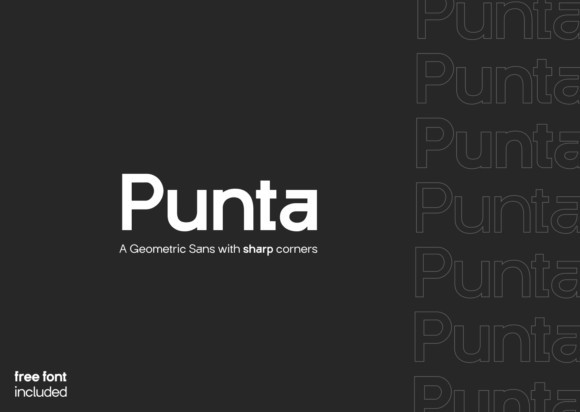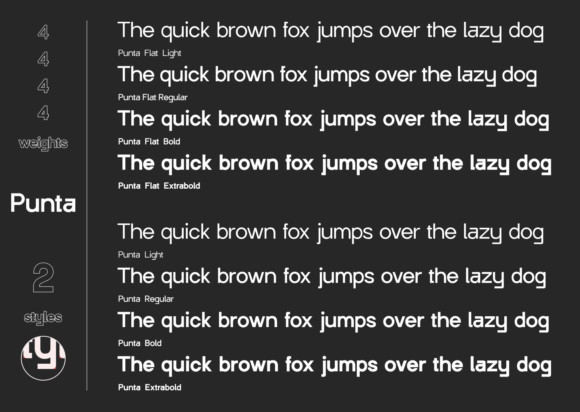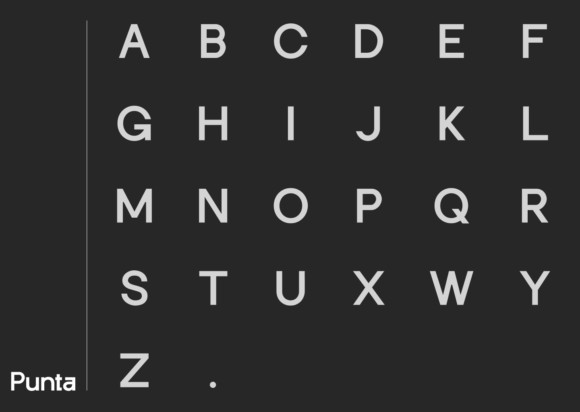
Punta Font
Punta is a minimal, yet elegant sans serif font. Suitable to a wide variety of designs due to its neat and simple style, Dunklem has the potential to become your favorite go-to font, no matter the occasion!